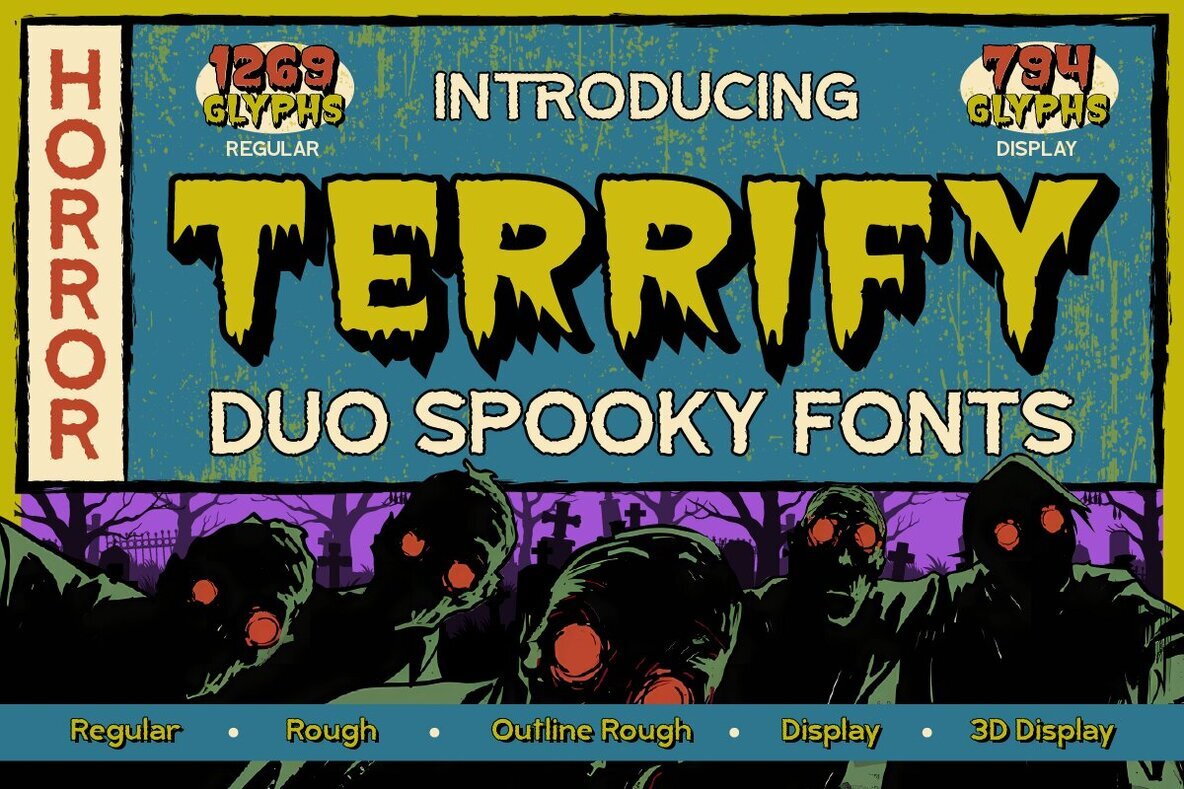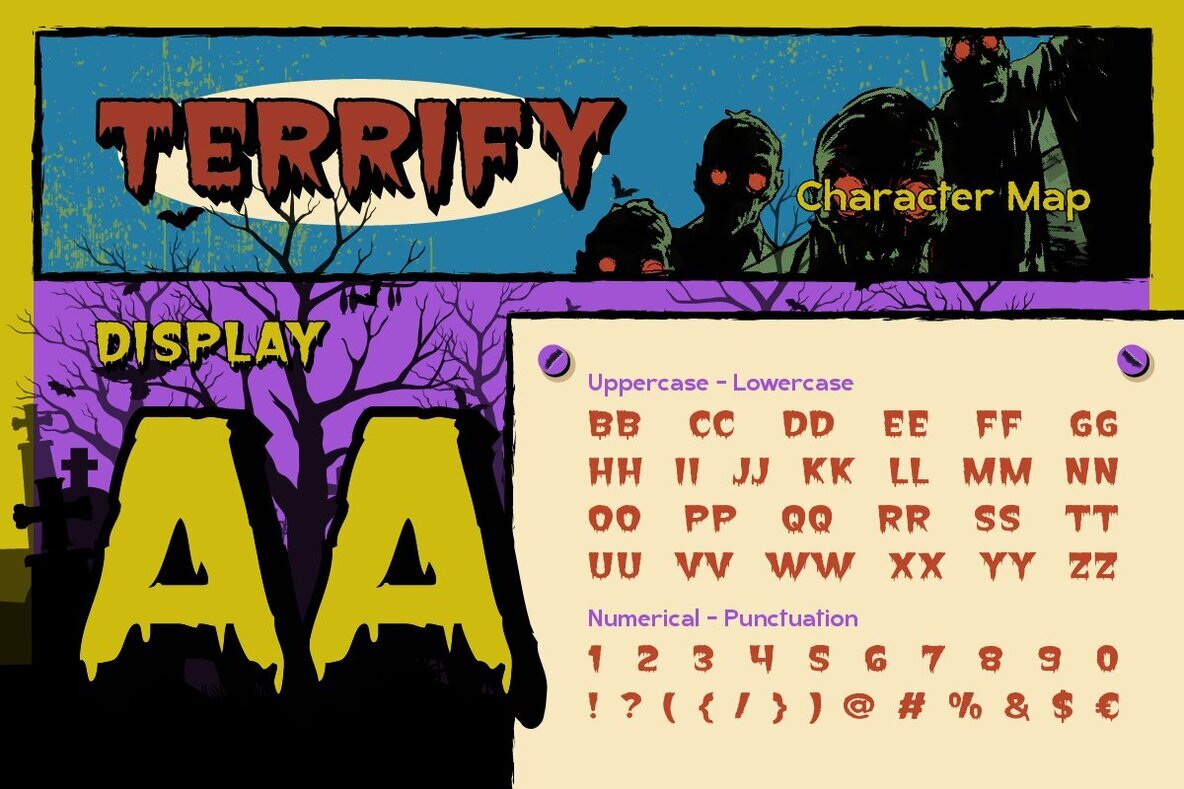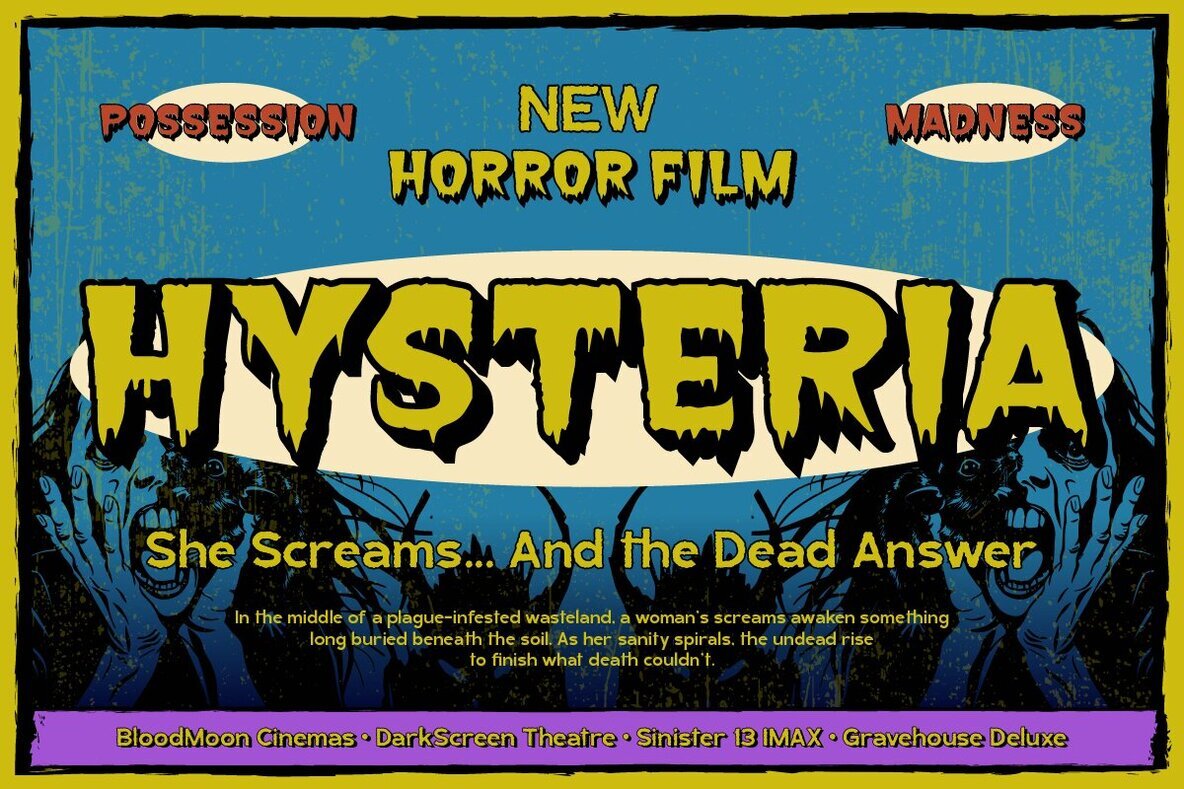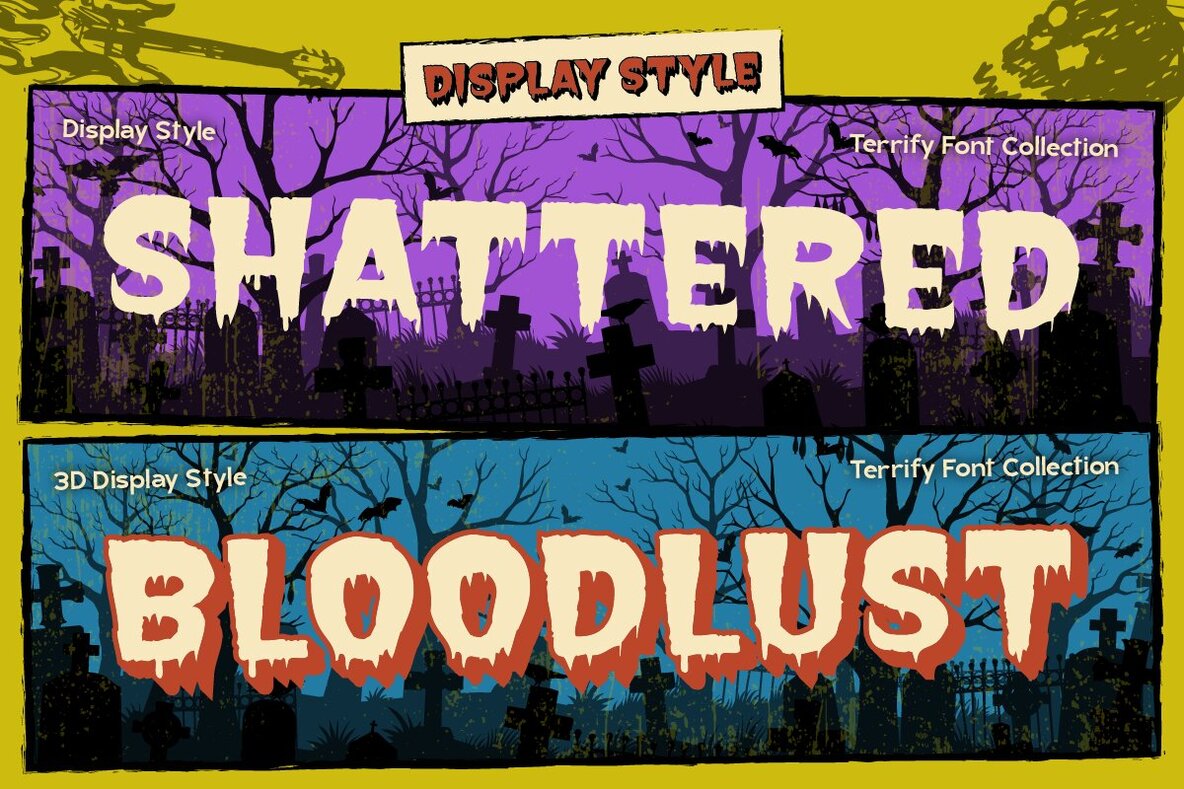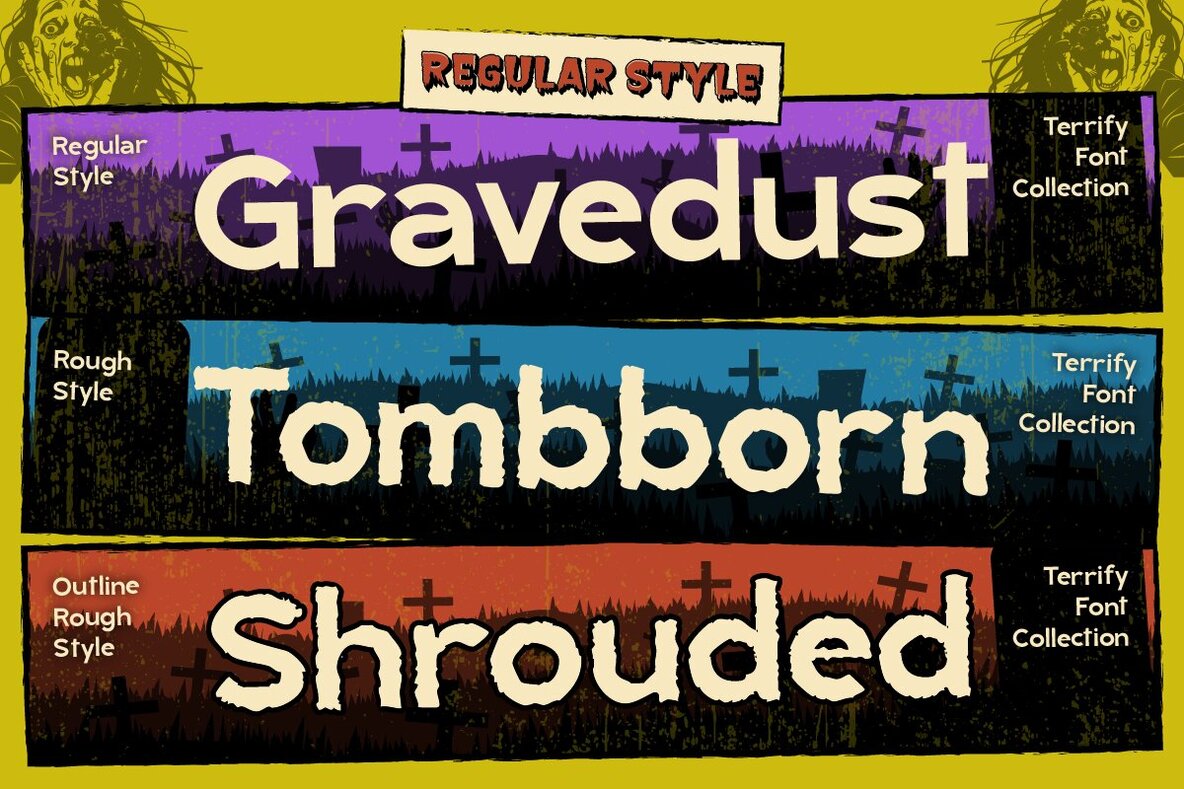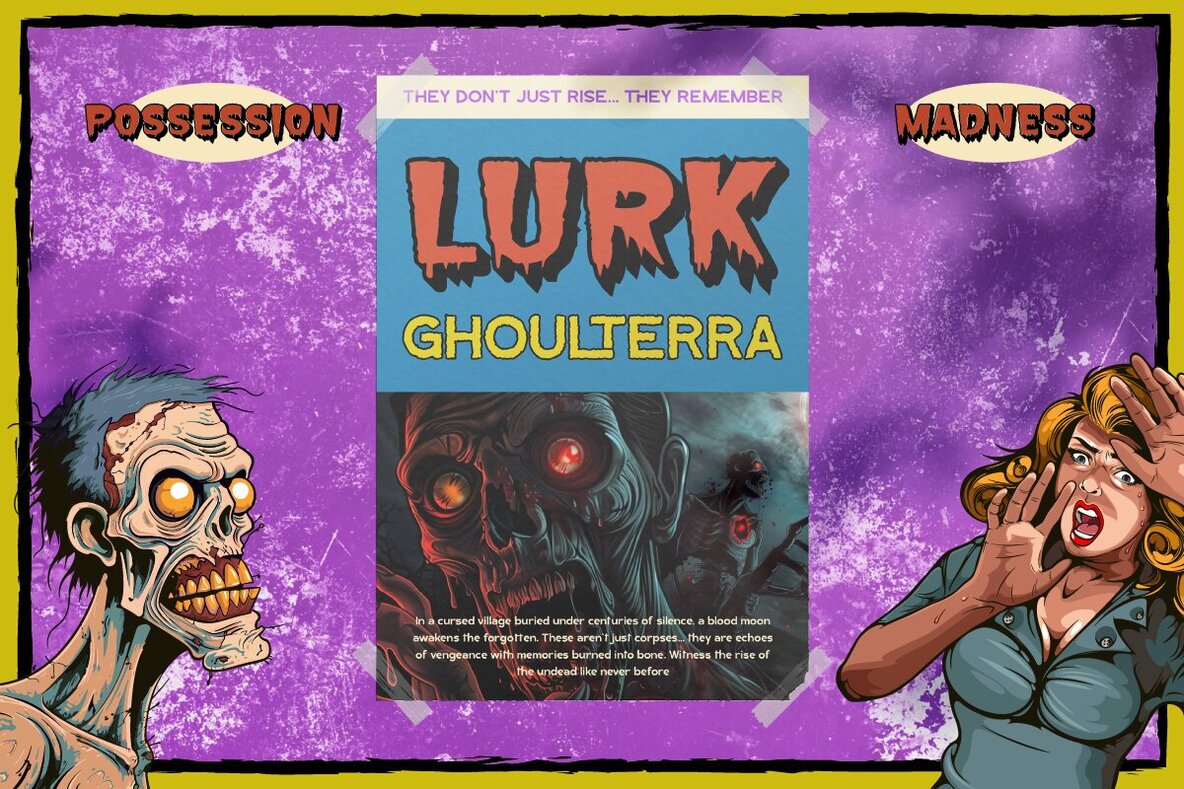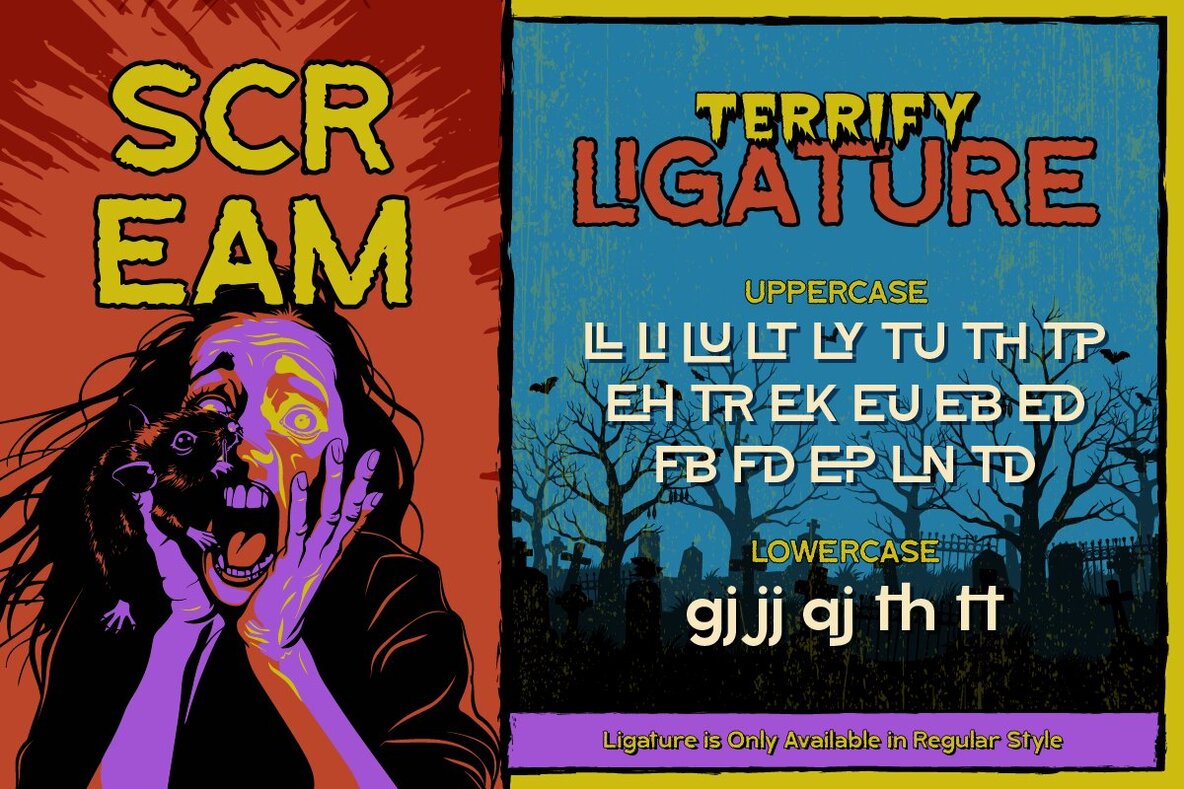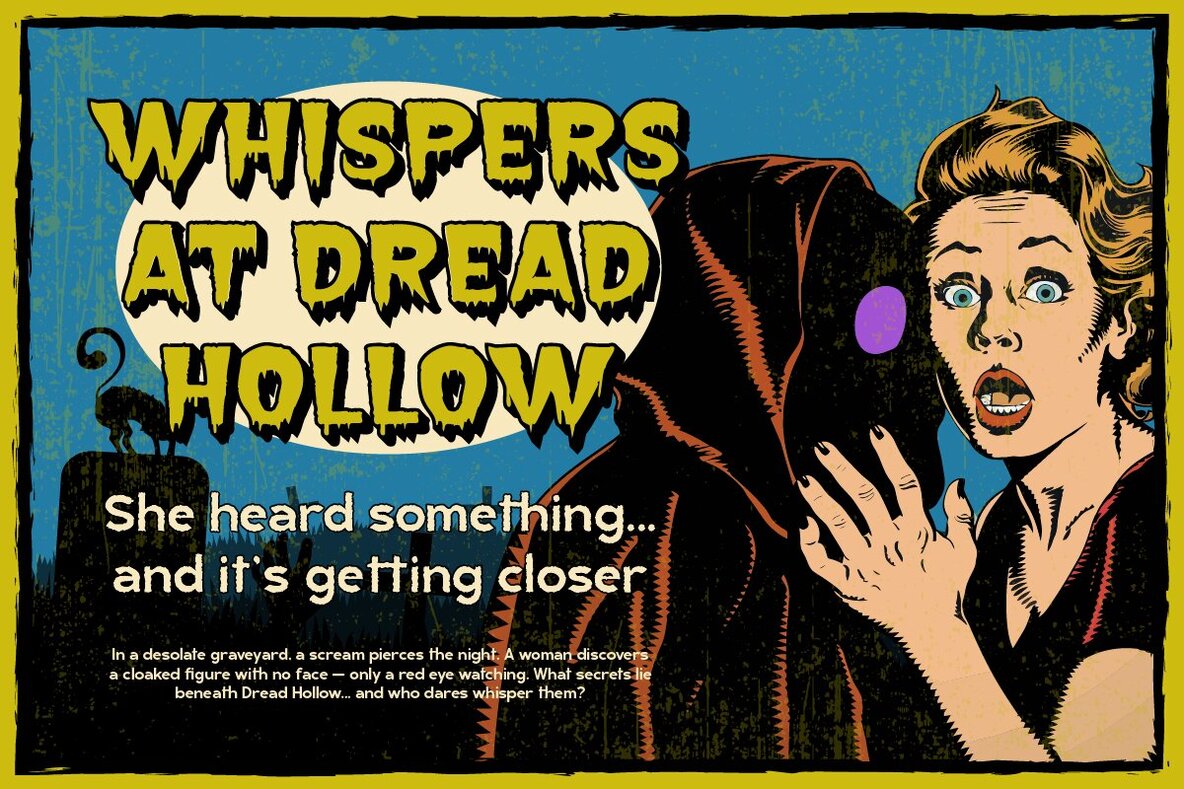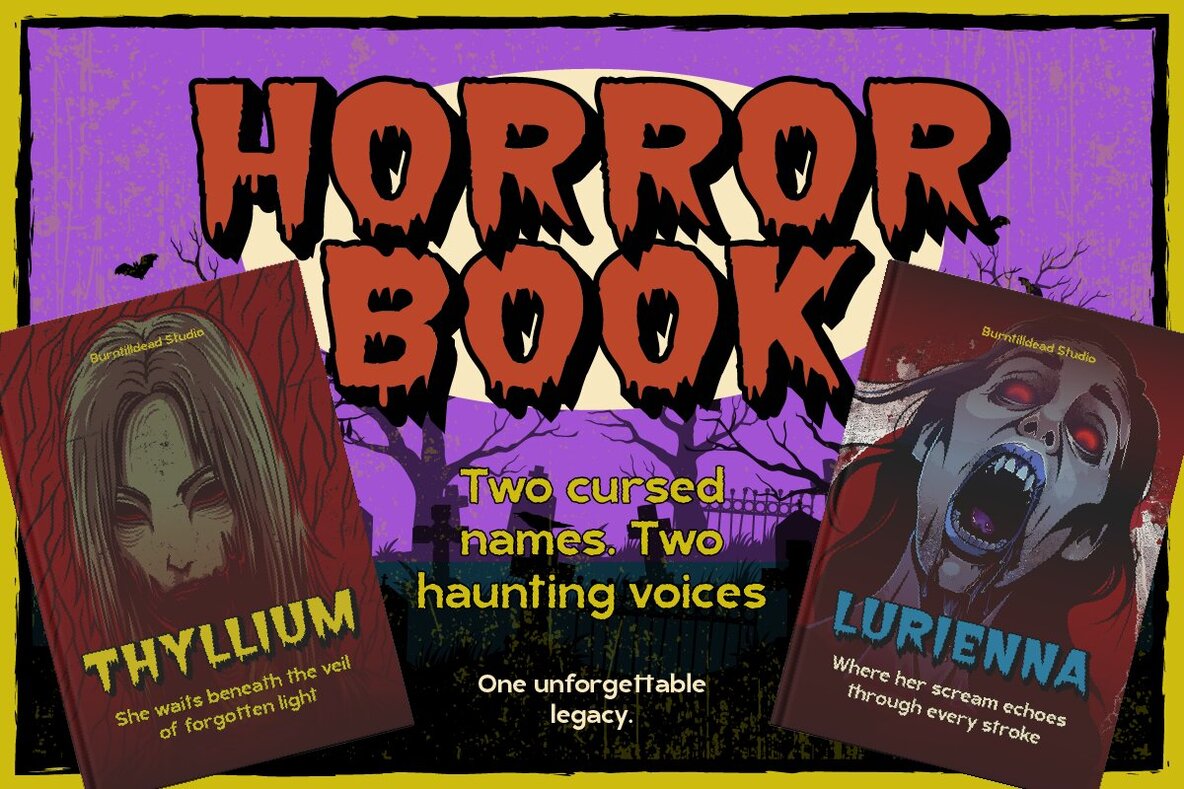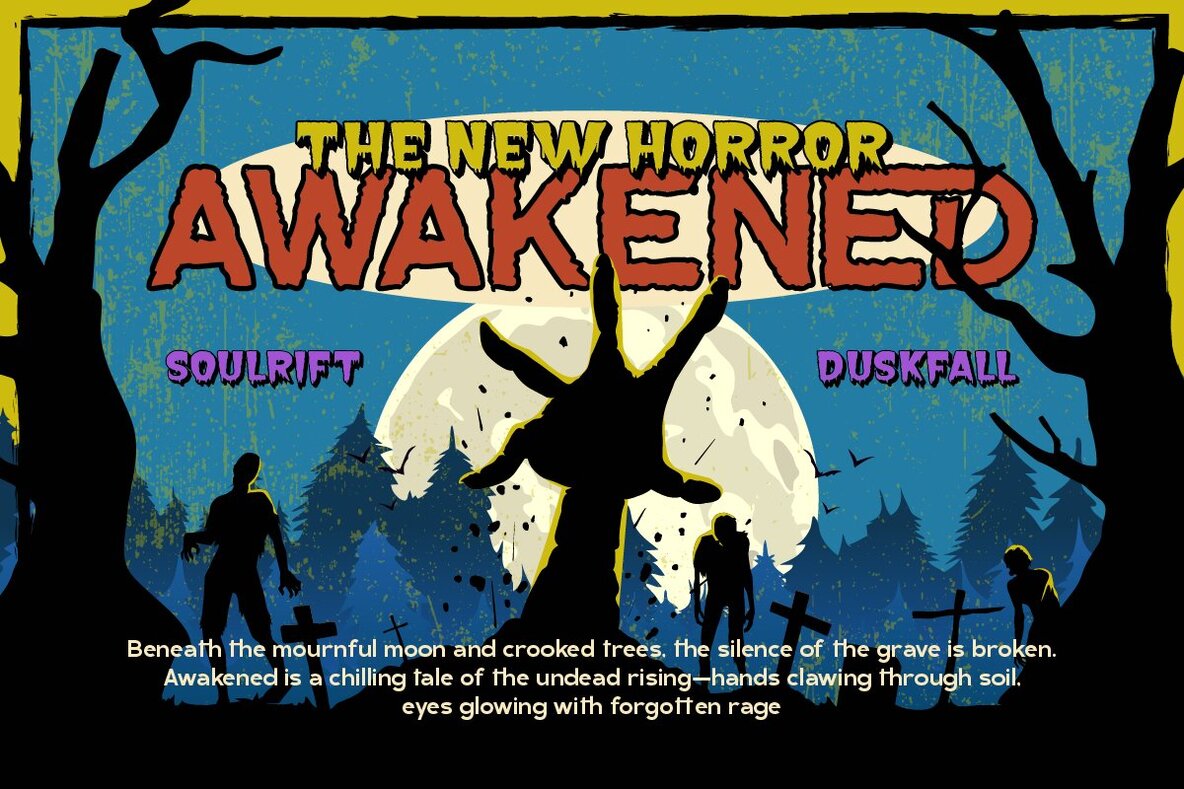
Terrify Font
Terrify is a horror-themed font that injects eerie, mysterious, and gothic vibes into any creative project. Ideal for graphic designers tapping into the darker side of design, its theatrical feel makes it a perfect fit for a range of applications from horror movie titles to Halloween invitations. This versatile typeface embraces two distinct styles: Display and Regular. The Regular style offers three intriguing variations: Regular, Rough, and Outline Rough. Meanwhile, the Display style includes both a Display and a distinctive 3D Display option. These variations echo the feel of cracked textures and a bloody atmosphere, reminiscent of tombstone engravings and vintage thriller aesthetics.Terrify Font: Bringing the Gothic Touch to Design